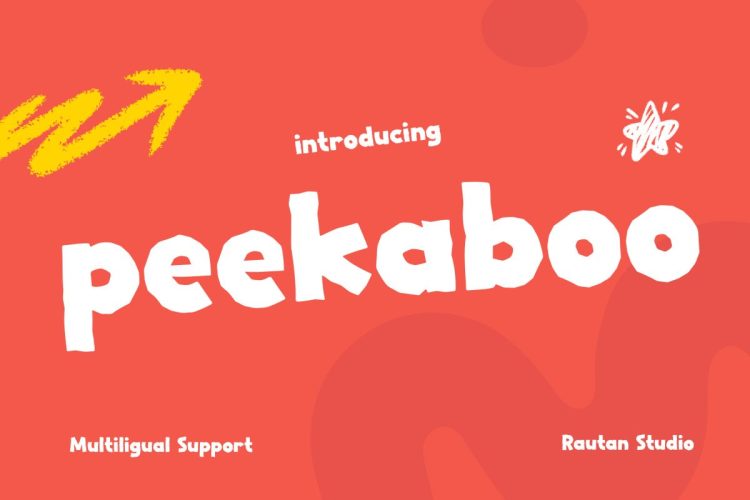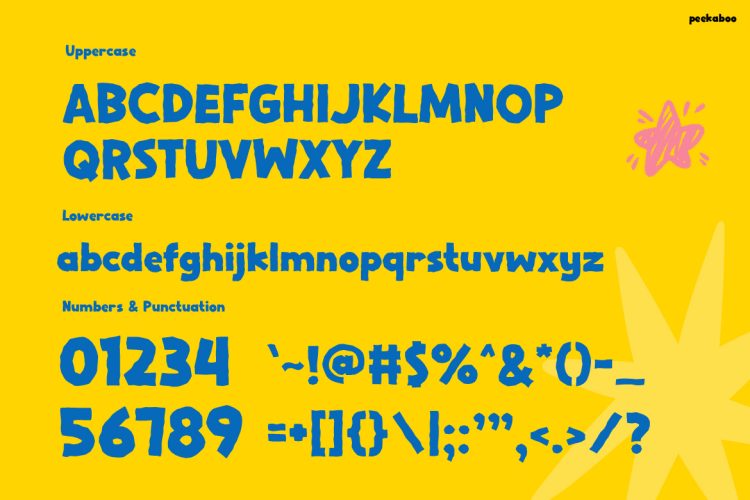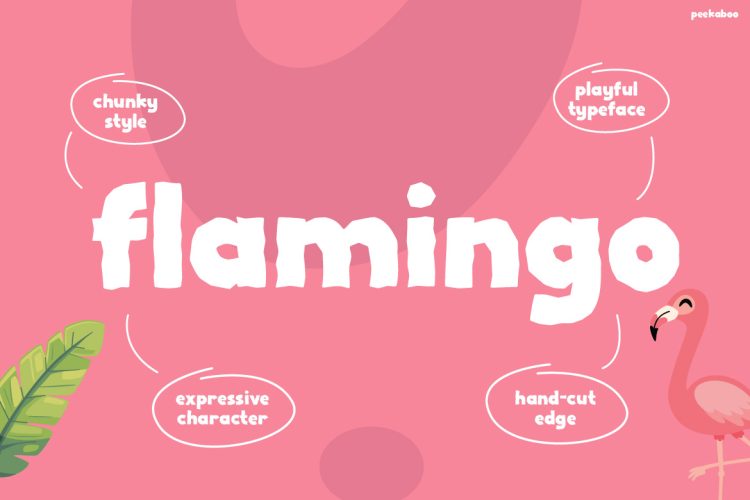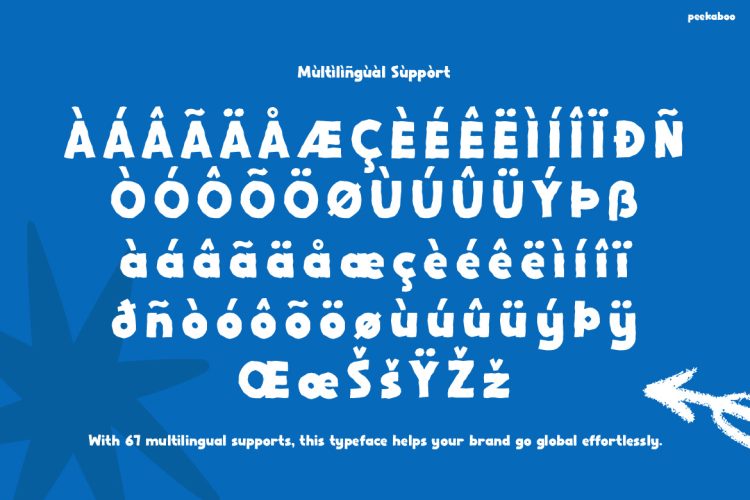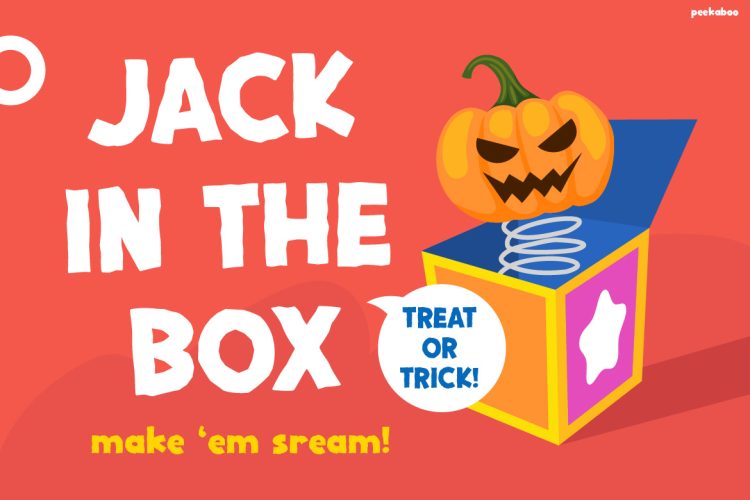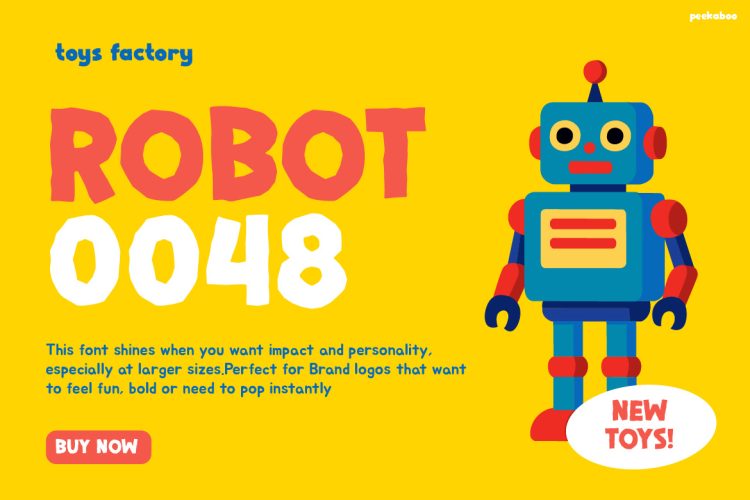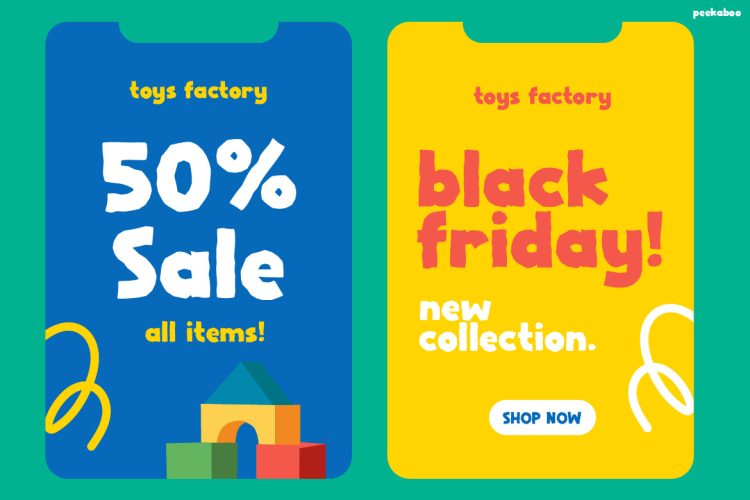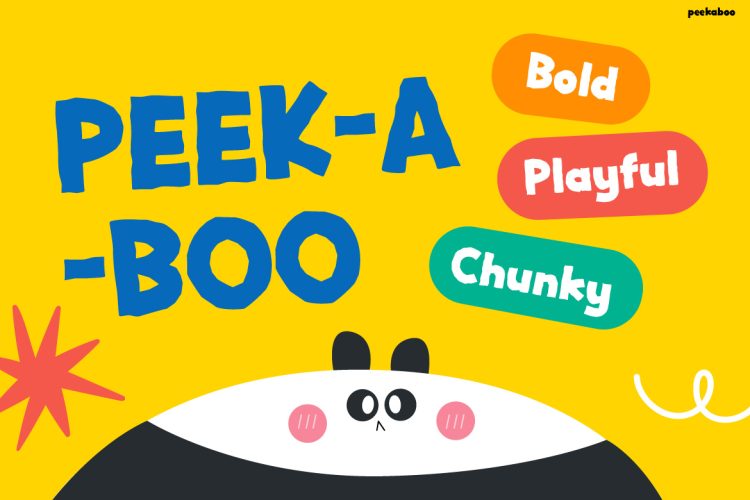
Kids Font PEEKABOO โ Bold, Playful, and Full of Smiles
Kids Font Peekaboo brings bold fun and cheerful energy into every design it touches. This font instantly feels playful thanks to its chunky letterforms, thick strokes, and soft rounded edges that look friendly and expressive. Peekaboo embraces an imperfect, hand-drawn charm that makes every word feel alive and approachable. Its exaggerated curves and bouncy shapes create strong visual impact while staying easy to read, even at smaller sizes. Because of this balance between fun aesthetics and clear structure, Peekaboo works beautifully for both eye-catching headlines and functional children-focused designs. The font does not try to be subtleโinstead, it proudly stands out, making messages feel happy, bold, and confident across digital and print media.
What Makes Kids Fontย Peekaboo So Special
Kids Font Peekaboo focuses on joyful expression without sacrificing usability. The thick strokes grab attention instantly, while the uneven curves add personality and warmth. Designers can rely on Peekaboo to create designs that feel playful, friendly, and modern at the same time. The font supports 67 languages, which allows creators and brands to communicate globally while keeping a consistent and fun visual tone. Peekaboo performs exceptionally well on posters, childrenโs books, packaging, social media graphics, learning materials, and playful branding projects. Each character feels intentional, making text look bold, cute, and full of life rather than stiff or generic.
Perfect For Who?
Kids Font Peekaboo fits perfectly for childrenโs brands, toy packaging, kidsโ books, educational materials, school projects, and playful merchandise. Graphic designers, illustrators, and creative studios can use Peekaboo to add personality to posters, stickers, greeting cards, and storybook covers. It also works great for social media content, YouTube thumbnails, event banners, birthday invitations, and playful advertising campaigns. Brands that target families, kids, or fun-loving audiences will benefit from Peekabooโs bold presence and friendly tone. Even creative entrepreneurs and small businesses can use it to build a cheerful and memorable brand identity.
Make Your Designs Smile
Kids Font Peekaboo helps your message feel fun, bold, and impossible to ignore. If you want a font that brings joy, creativity, and strong visual characterโwhile still supporting global languagesโPeekaboo is the perfect choice. Add it to your collection today and turn every design into a playful experience people love to see.